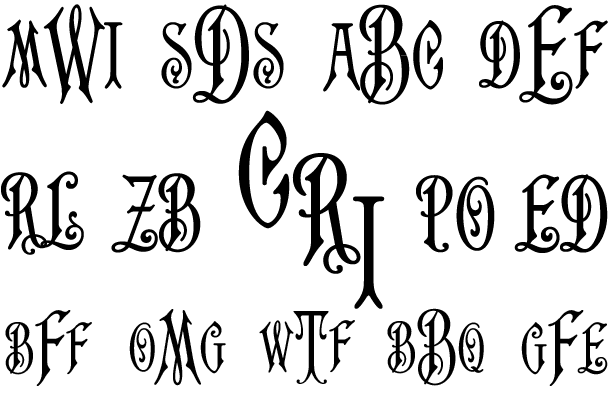
Carson Monogram
Font Family by Monogram Fonts Co
The source of inspiration for Carson Monogram is a letter set from the book Art Monogram and Lettering by J.M. Bergling, published in 1912. The elegant and historical Carson Monogram can create one, two, or three letter monograms as well as basic headline and titling settings. By default, Carson Monogram types in a horizontal format, but by utilizing OpenType Contextual Alternates, you can typeset in a three smallcap diagonal format as well! It is a refined look that is perfect for a wide array of classic personalization settings.